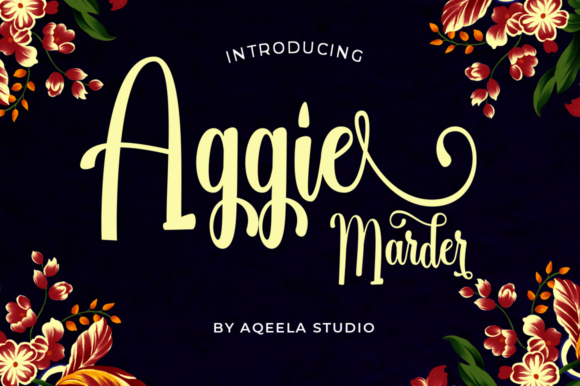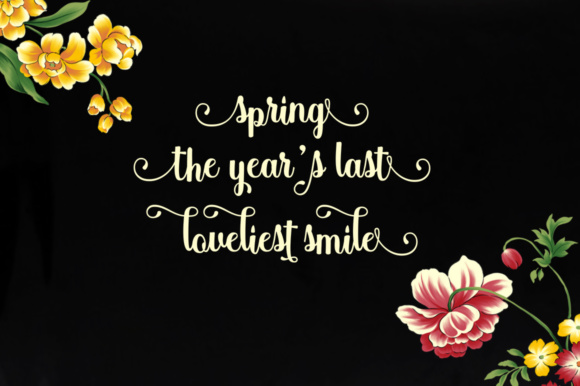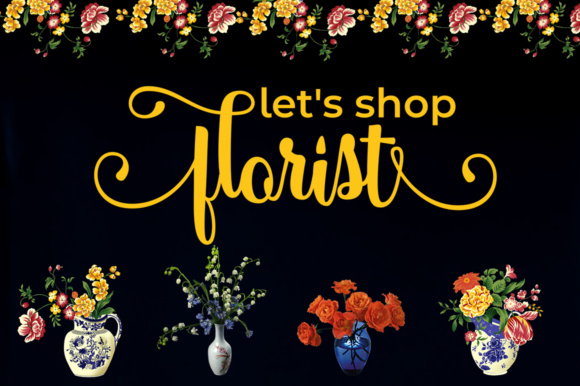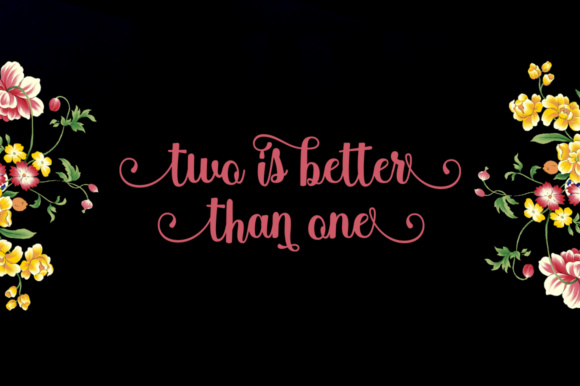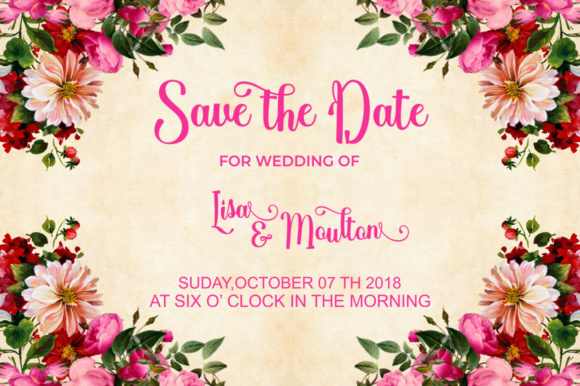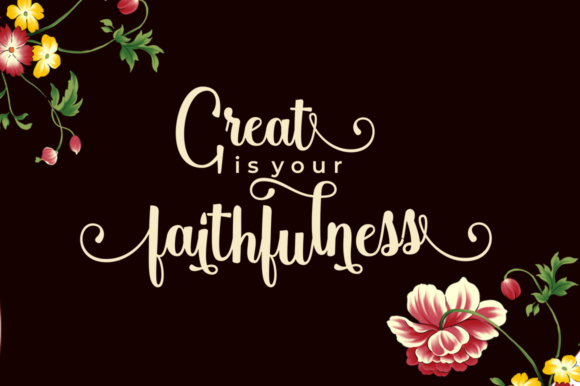
Aggie Marder Script Font
About Aggie Marder Script Font
The Aggie Marder is a modern calligraphy script. It has characters dancing along the baseline which gives it an elegant touch.It can be used for various purposes such as: logos, invitations, headings, t-shirts, letterheads, and much more!